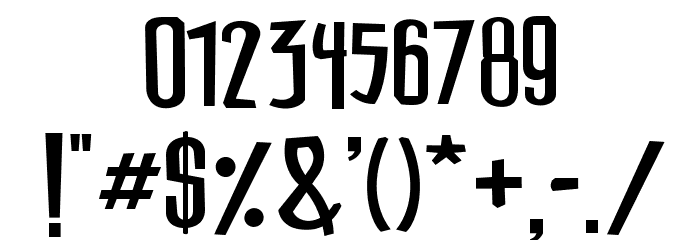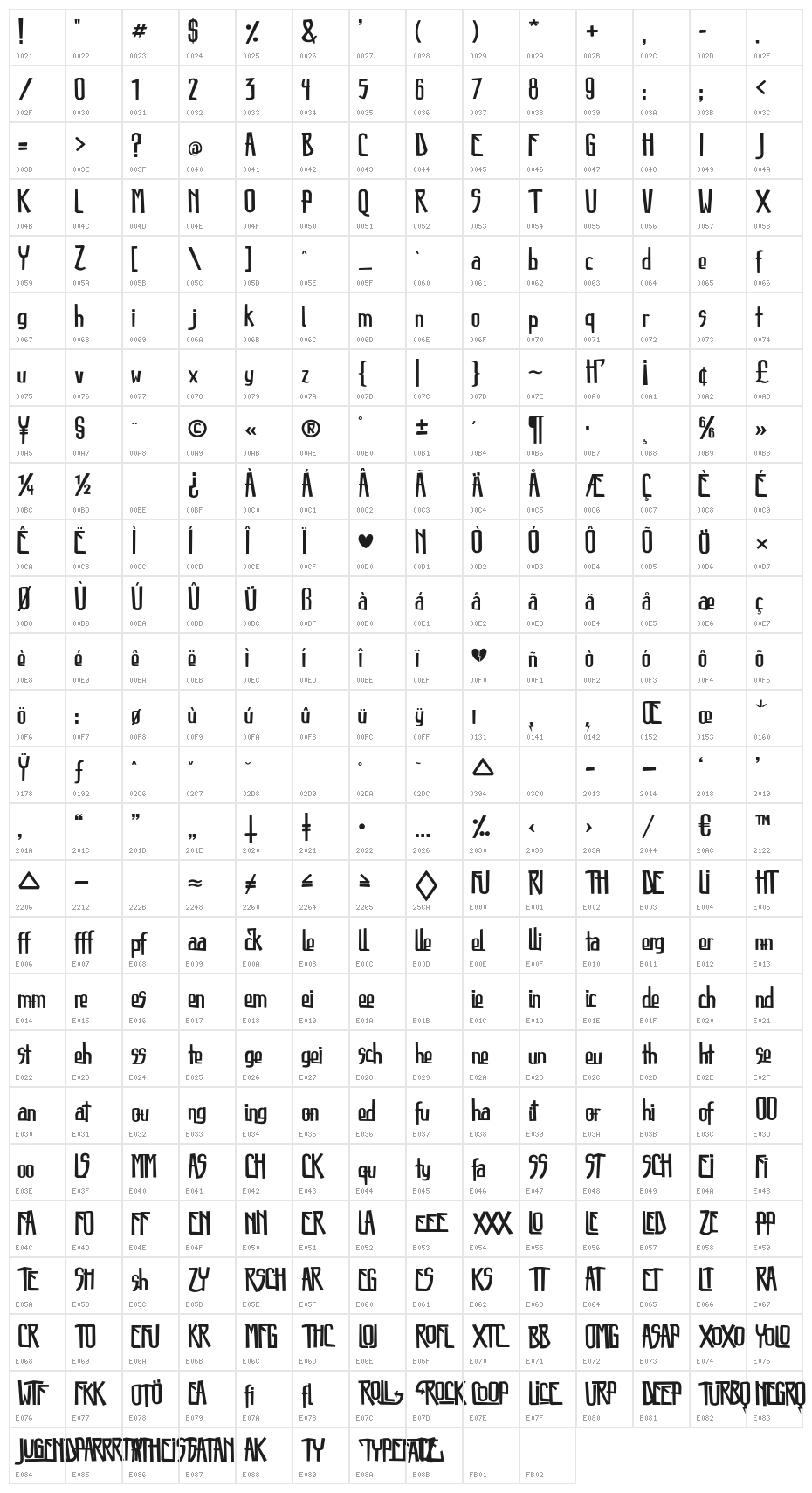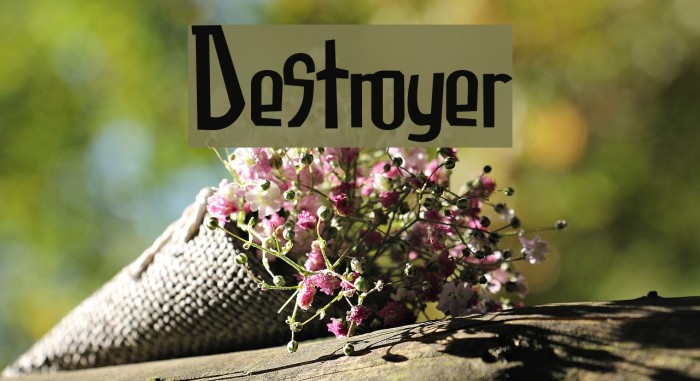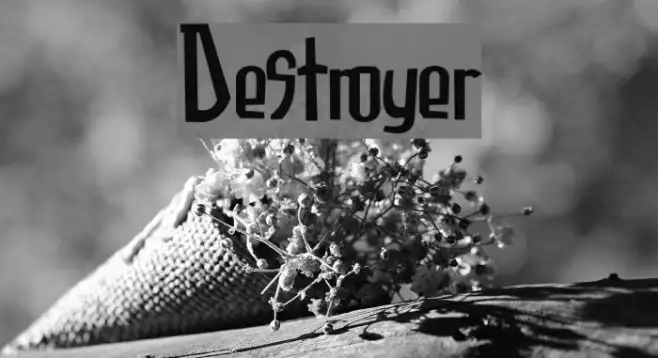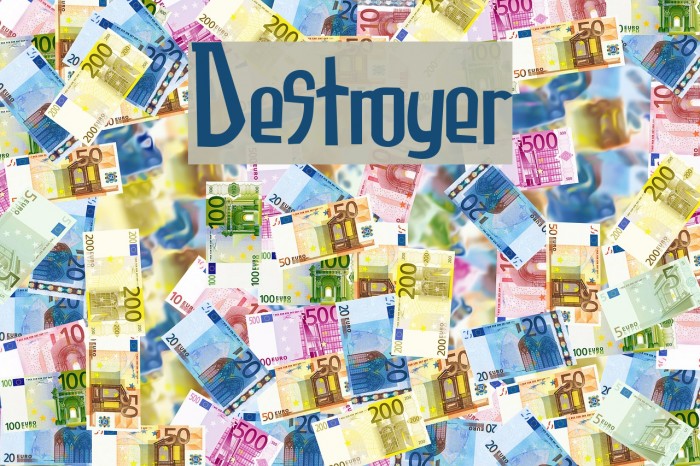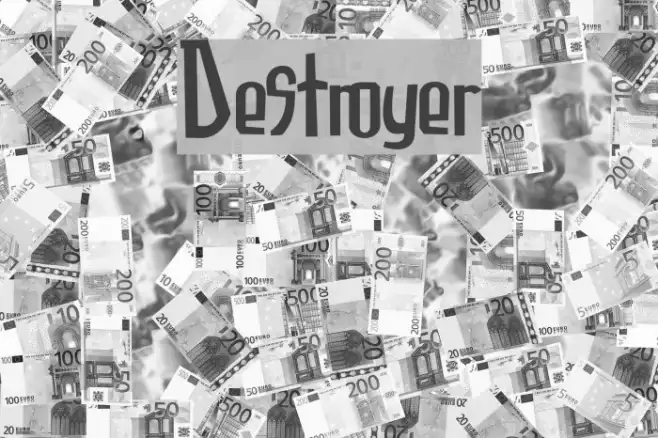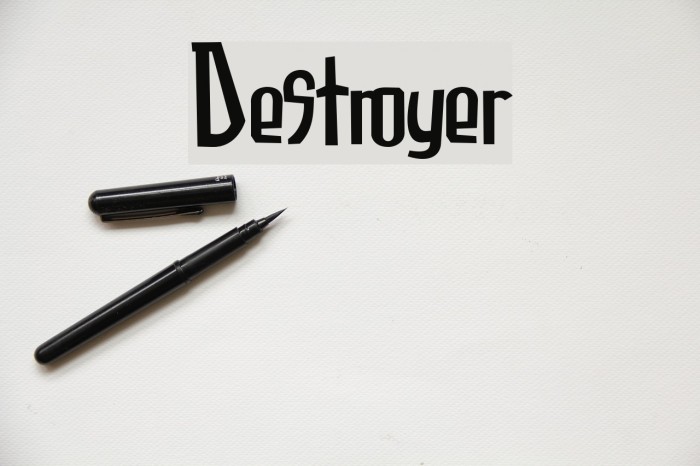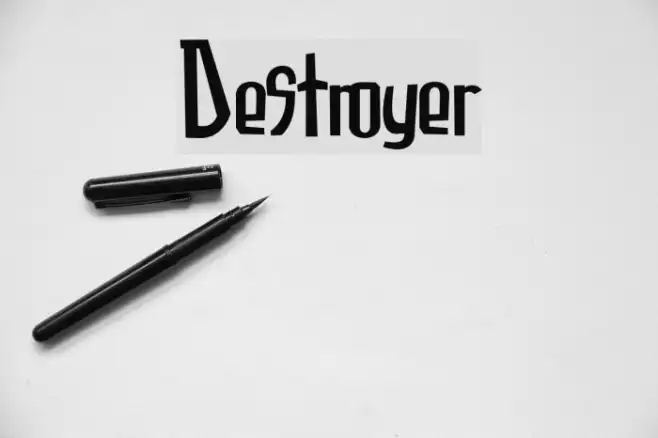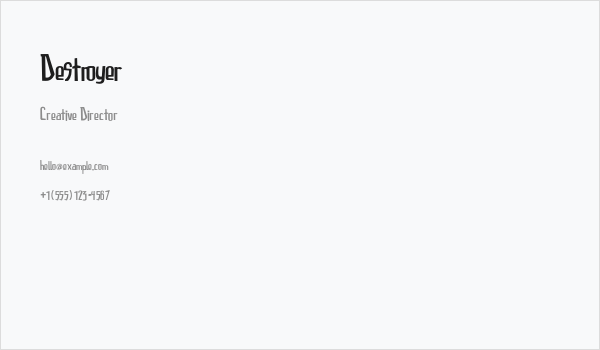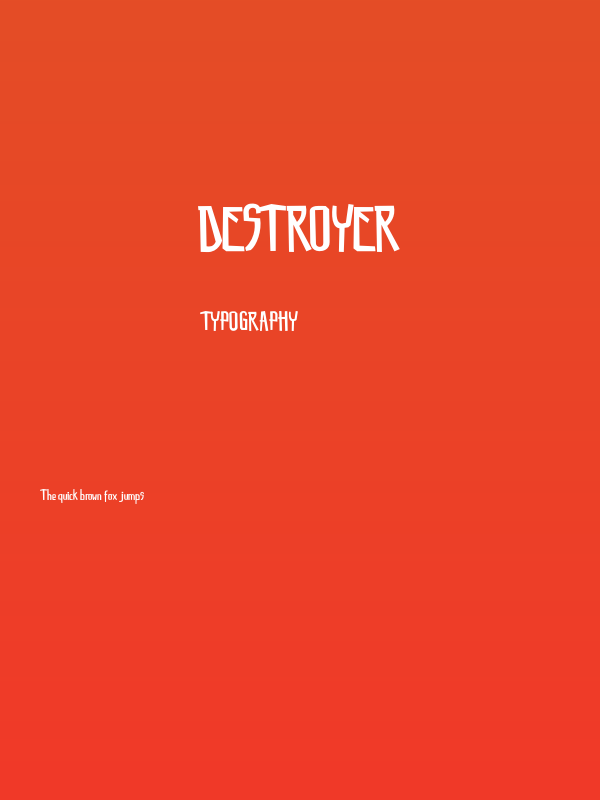
Destroyer Font
Destroyer Description
This font features a bold, dynamic style with a slightly condensed appearance. The characters have a playful, irregular form, giving them a unique and eye-catching look. The uppercase letters are tall and narrow, while the lowercase letters maintain a consistent height, adding to the font's quirky charm. The numerals and special characters follow the same stylistic approach, ensuring a cohesive design. The overall aesthetic is modern and slightly edgy, making it suitable for projects that require a distinctive and memorable typeface.
| Proposed Projects | Ideal for posters, album covers, branding, and creative projects that need a standout typeface. |